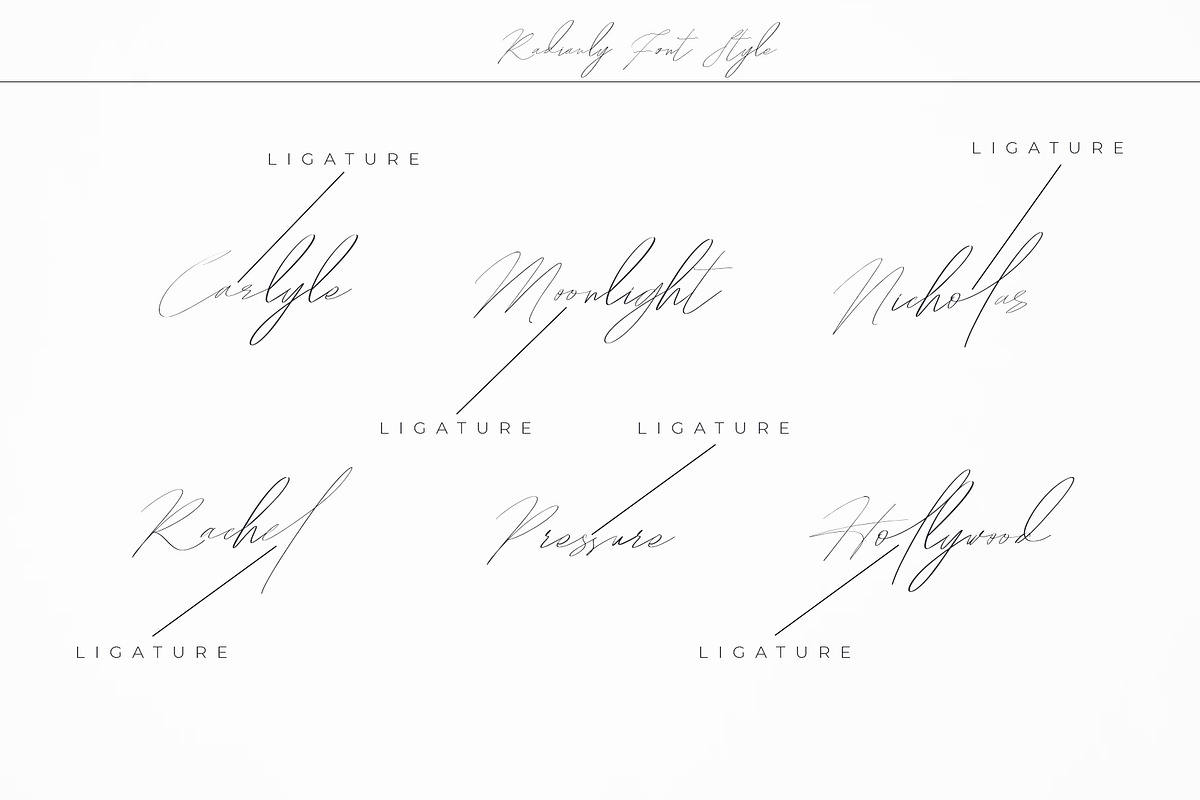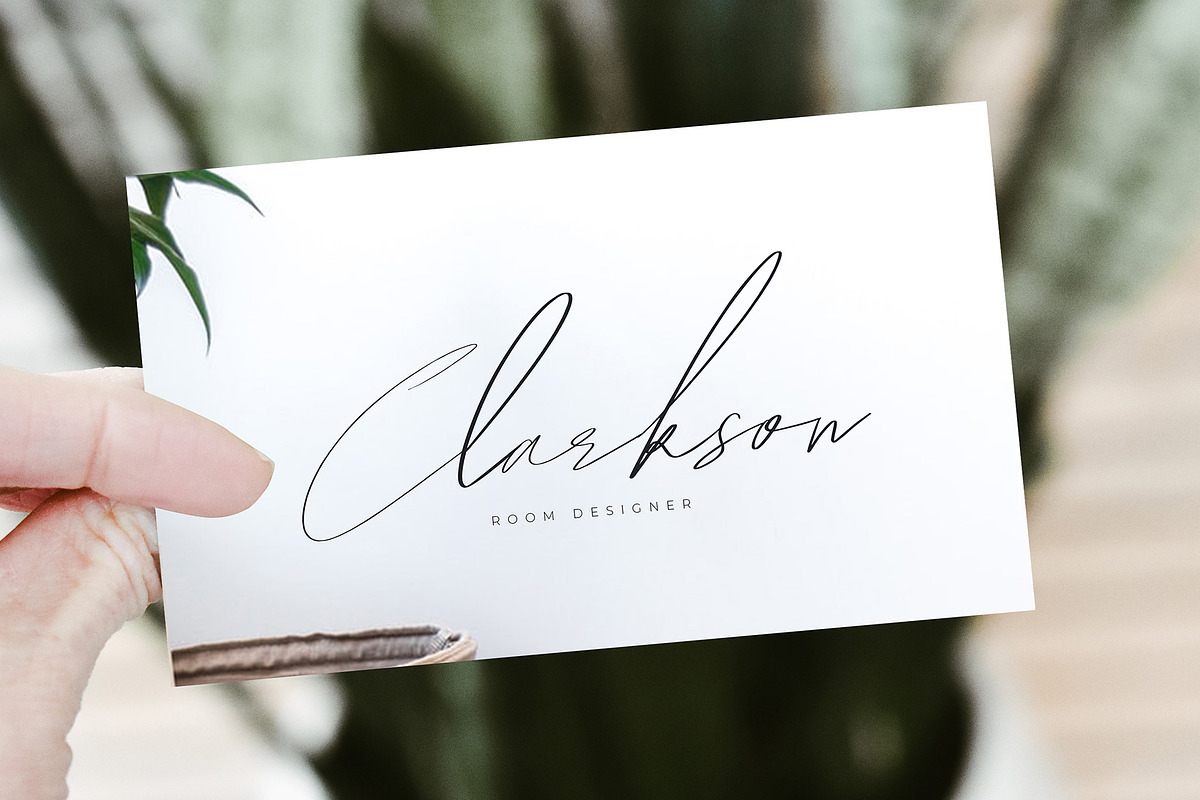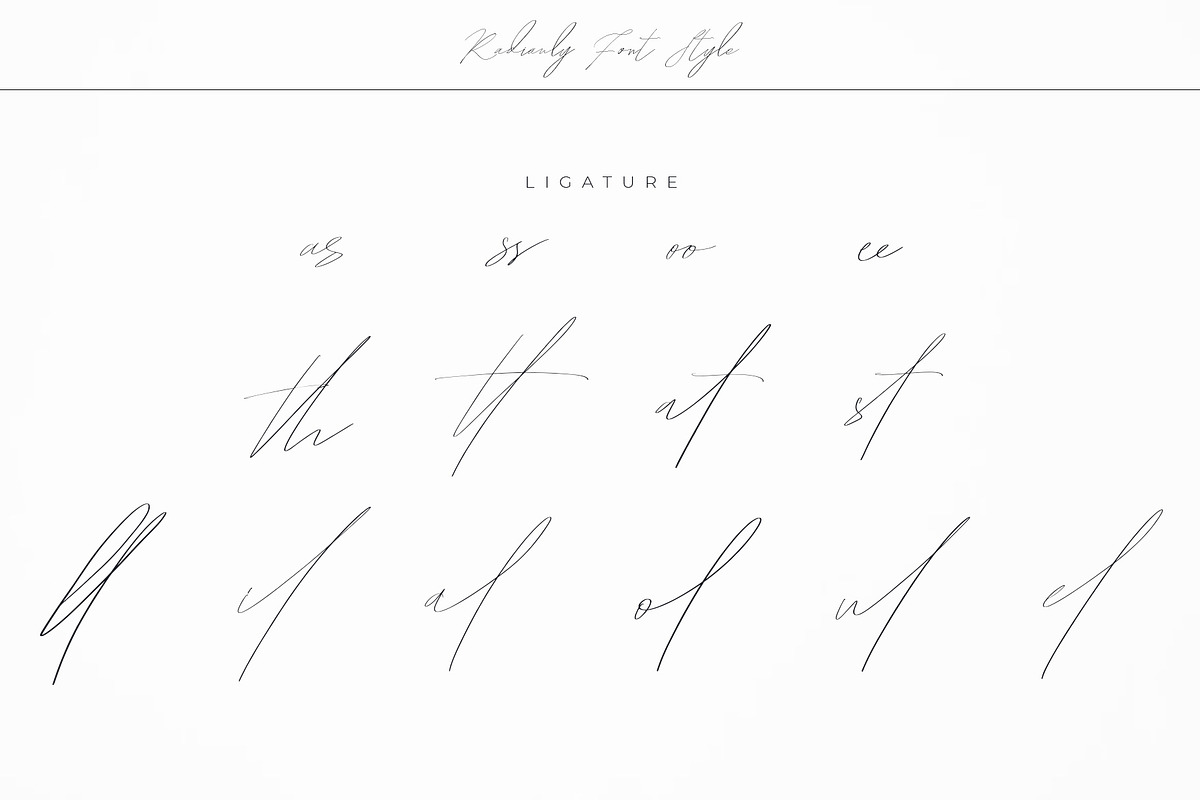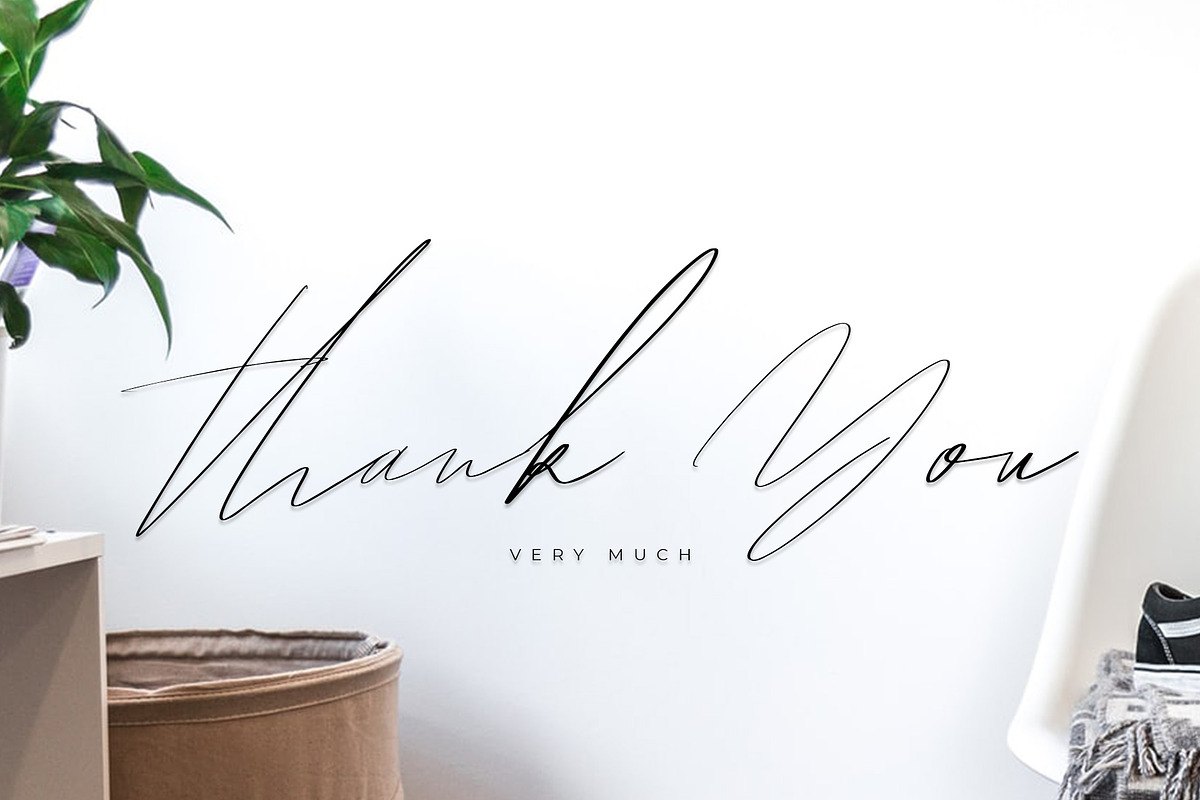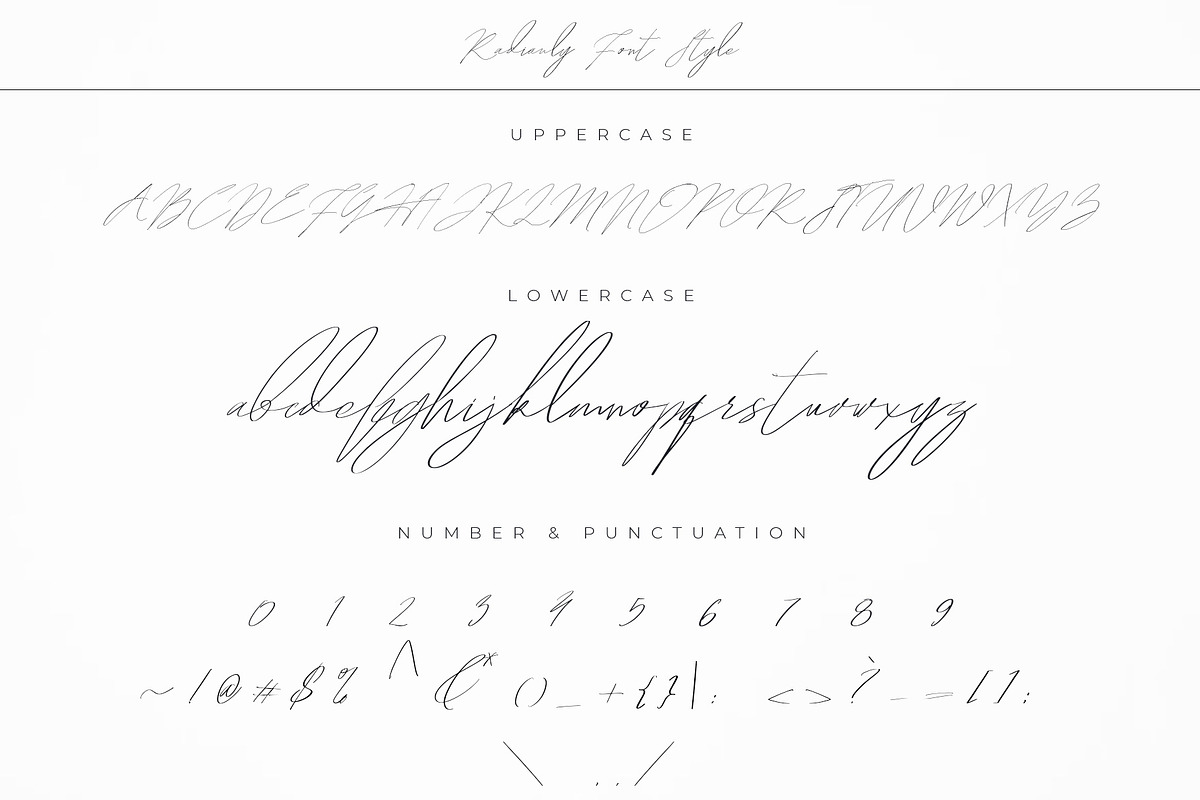
Hegomoni Signature
We introduce our new product called Hegomoni Signature
Hegomoni Signature is a signature font that you can use to make a design. This is perfect for BRANDING,funny logos with this font and poster headline, magazines, book titles, business cards, beautiful fashion designs, advertisements, product designs, wedding invitation, signature or handwritten quote.
Hegomoni Signature also includes full set of uppercase and lowercase letters, multilingual symbols, numerals, punctuation. The font has smooth wet ink texture, so would be perfect for all types of printing techniques+you can do embroidery, laser cut, gold foil etc.
Features you get :
Latin A -Z and a – z
Number
International Symbol
International glyphs
Alternatif